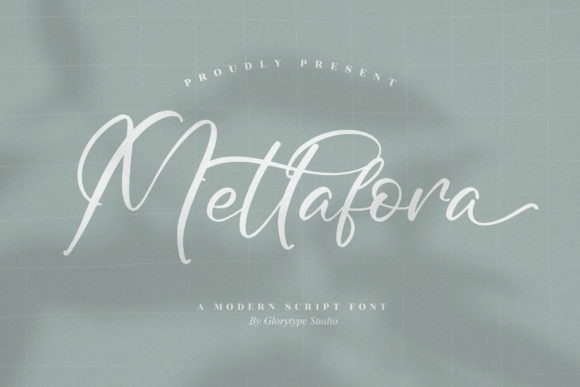
Mettafora Script Font
Mettafora Script Font, is a modern script font. It is suitable for various projects such as: logos, branding projects, homeware designs, product packaging, and all your other lovely projects that need a beautiful touch. This font is PUA encoded which means you can access all of the glyphs and swashes with ease!